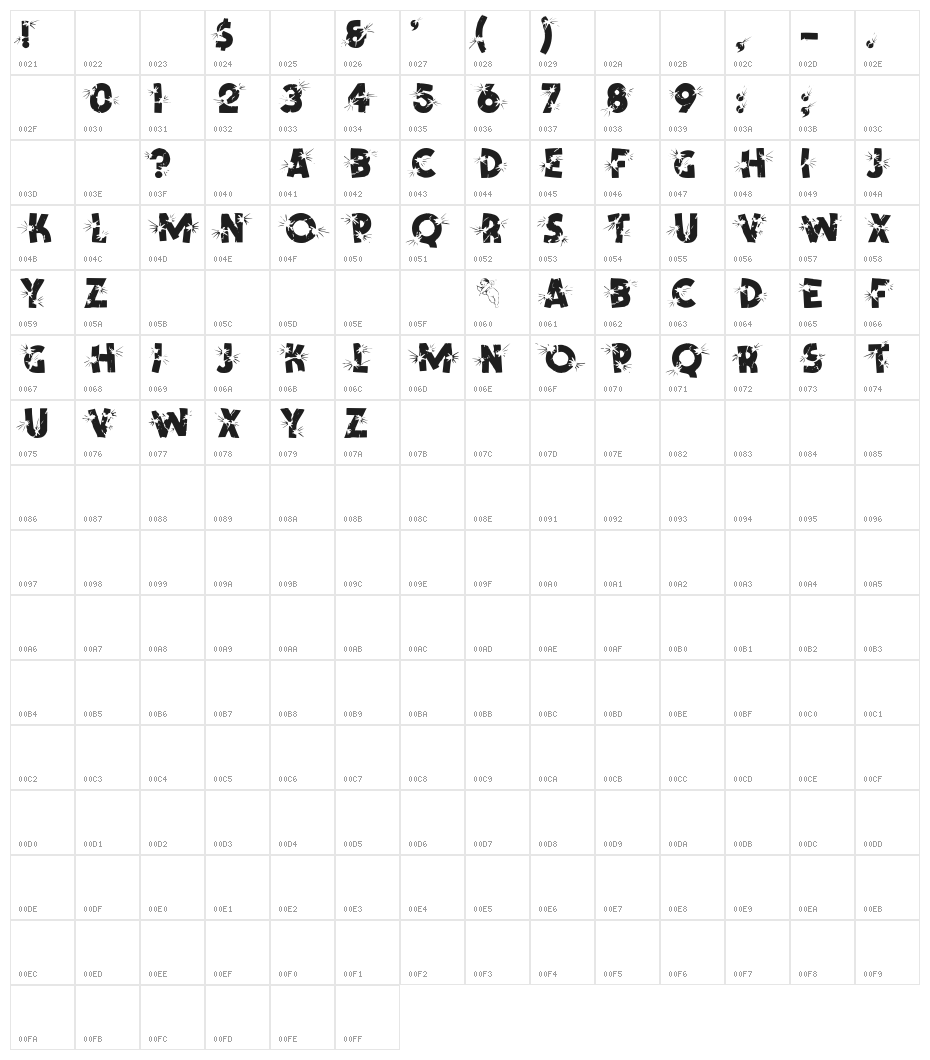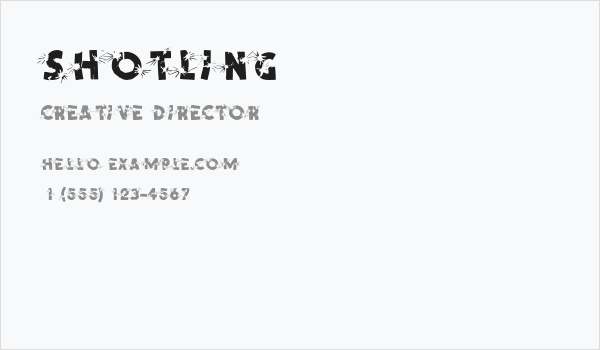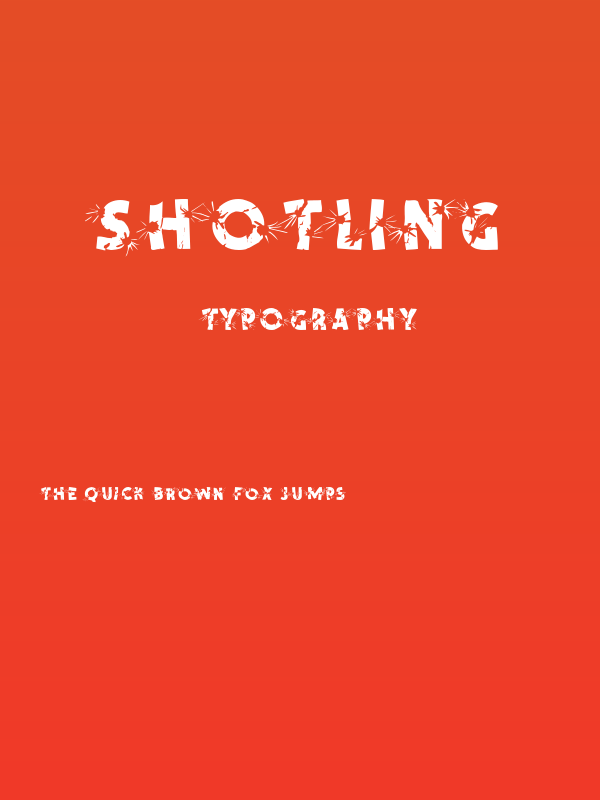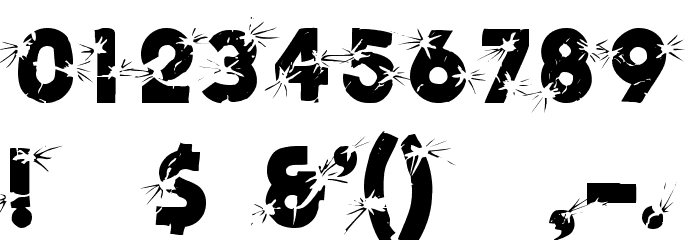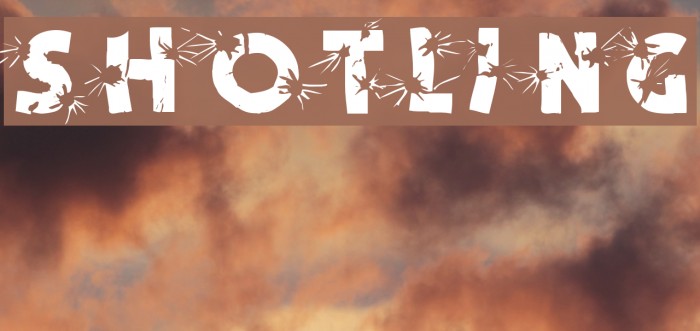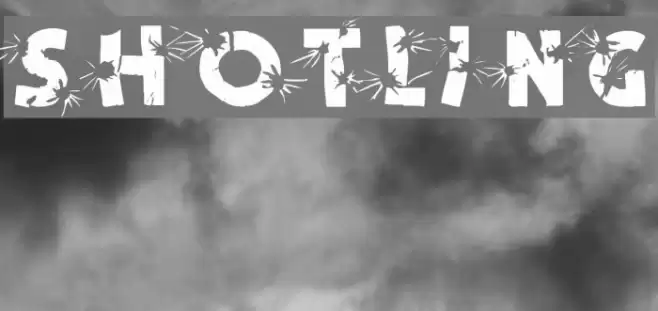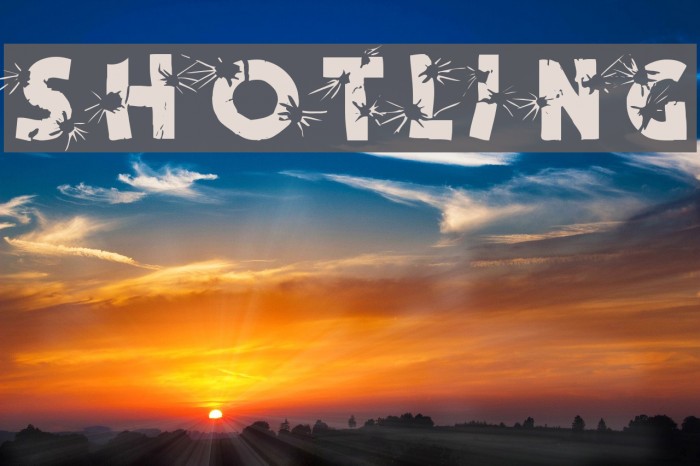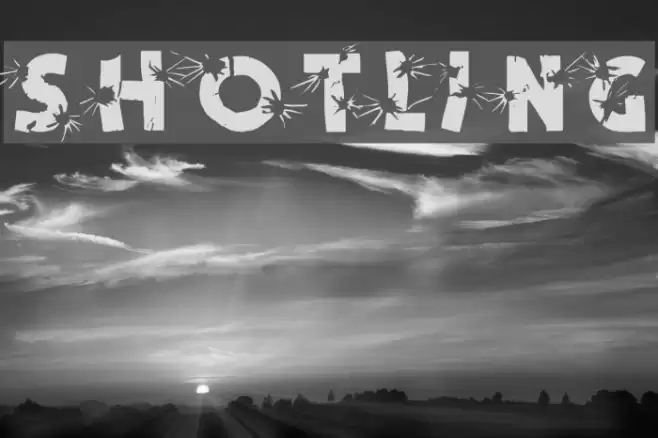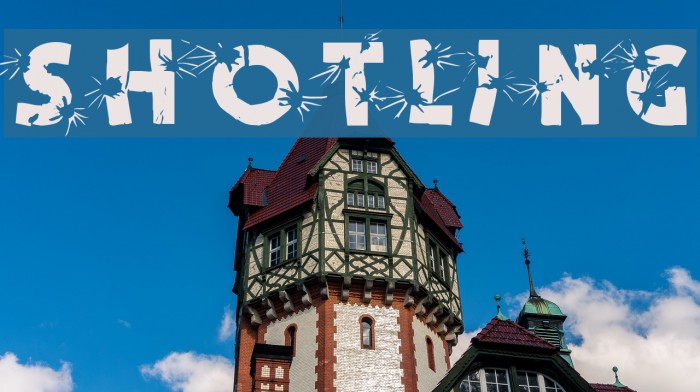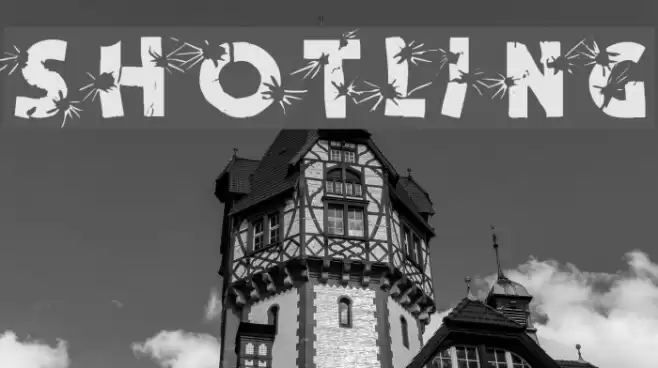
Shotling Font
Shotling Description
This font features a bold and dynamic design with a unique shattered effect that gives each character a fragmented appearance. The letters are uppercase and lowercase, with numbers and special characters included. The style is highly decorative, making it stand out with its irregular, broken lines that create a sense of movement and energy. The font's boldness is emphasized by its thick strokes, while the shattered elements add a layer of complexity and visual interest. This design is perfect for projects that require a strong, impactful visual statement.
| Proposed Projects | Ideal for posters, album covers, event flyers, and any design needing a bold, eye-catching headline. |